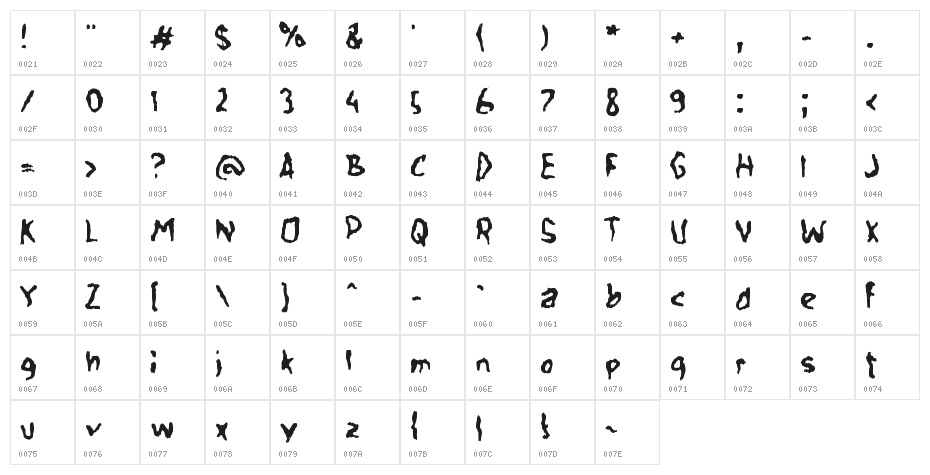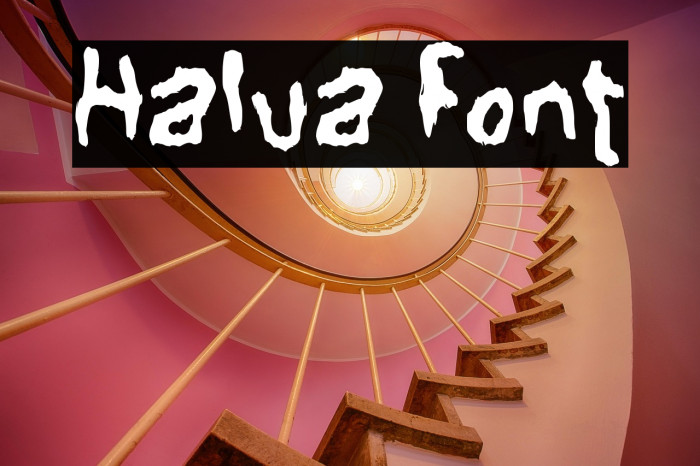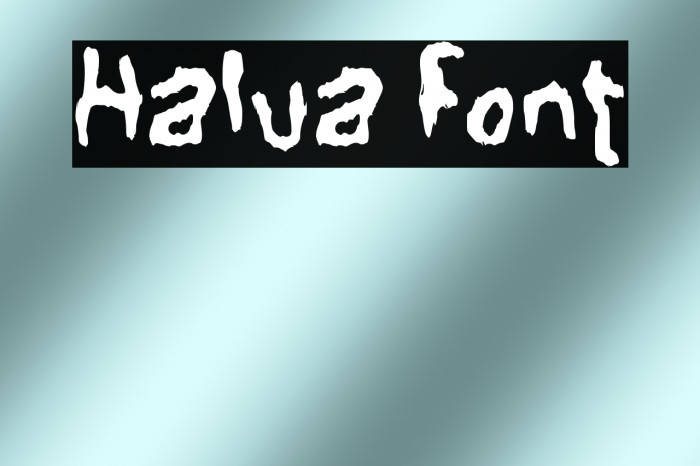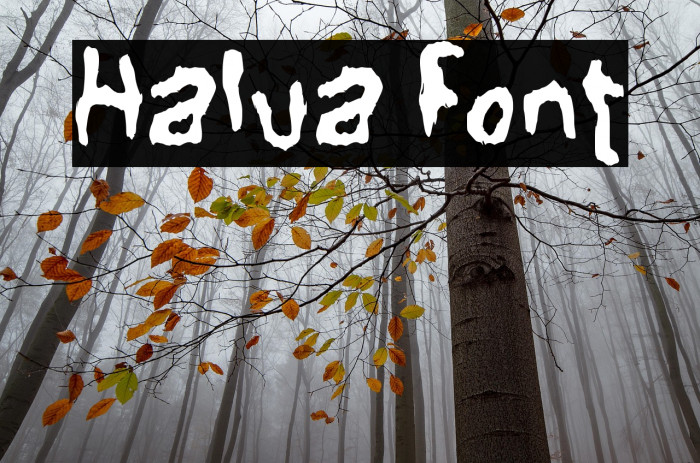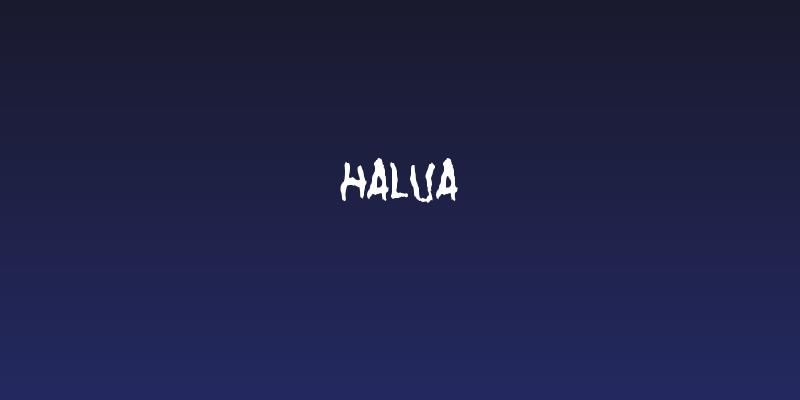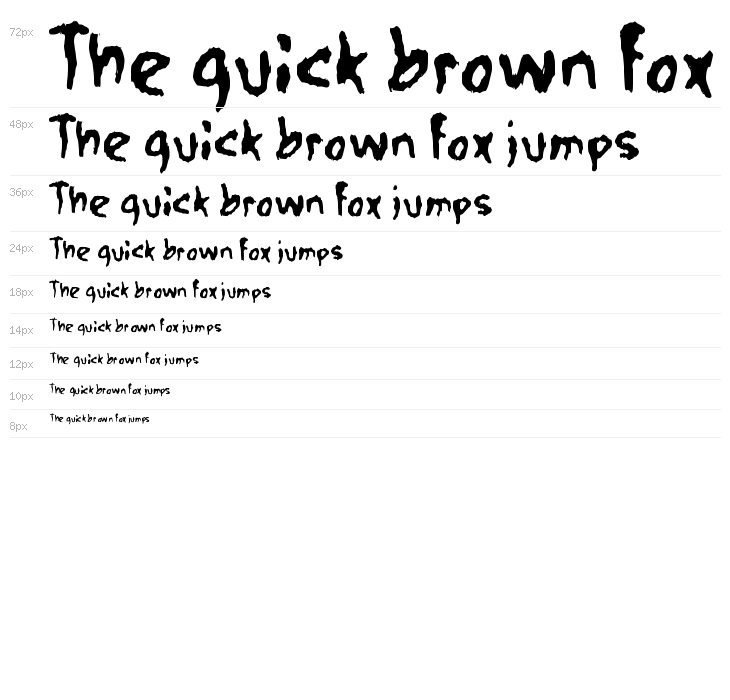
Halua Font
Halua Description
This font features a rugged, hand-drawn appearance with irregular edges and a bold, expressive style. The characters are unevenly shaped, giving a raw and organic feel. The uppercase and lowercase letters maintain a consistent roughness, while the numbers and special characters follow the same aesthetic. This font's unique texture and bold presence make it stand out, offering a sense of creativity and spontaneity. The overall design is reminiscent of graffiti or artistic brush strokes, providing a dynamic and energetic vibe.
| Use Case | Logos, Headlines, Posters |
| Proposed Projects | Ideal for artistic projects, posters, album covers, and creative branding. |